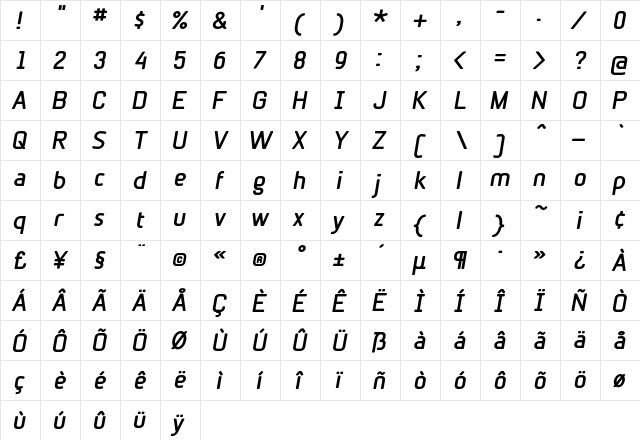
BetaSans BoldOblique Font Preview
| Style | BoldOblique |
Design Context for BetaSans Typeface
BetaSans takes a measured approach to typography — its balanced proportions and neutral character make it a reliable workhorse for both digital and print work. The dynamic lean of this cut emphasises speed and emphasis in any layout. Its bold stroke weight gives it real presence on the page.
Pro Tip: Try BetaSans for annotation and caption copy alongside an upright companion — the contrast in angle creates a dynamic but ordered typographic system.